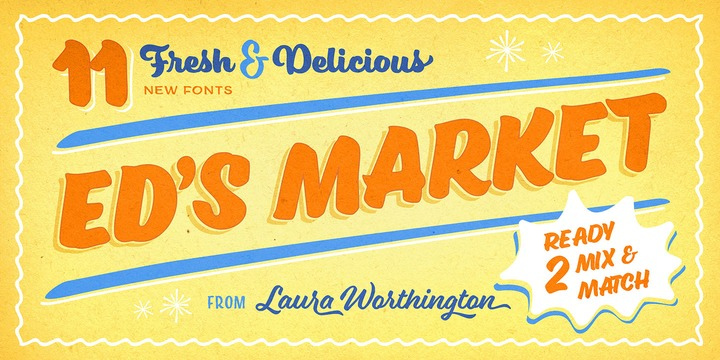
Ed's Market Font
Ed's Market Font is perfect for vintage market signage, rustic restaurant branding, artisanal product labels, farm-to-table establishments, organic food packaging, craft brewery logos, antique shop displays, and nostalgic small business communications.
Ed's Market Font is exciting because it captures the authentic charm of old-fashioned marketplace signage with weathered letterforms and rustic character details that evoke hometown warmth and traditional craftsmanship. Its nostalgic personality creates immediate emotional connection and genuine small-town authenticity that resonates with customers seeking traditional values.
Ed's Market Font family includes regular weight with vintage variations and weathered alternates, providing designers with comprehensive options for creating authentic marketplace typography solutions that project rustic charm and traditional quality.
Ed's Market Font Free Download delivers premium vintage typography that embodies the essence of traditional marketplace culture and authentic small business character. This charming typeface demonstrates exceptional attention to rustic detail through its weathered letterforms and marketplace-inspired construction that recreates genuine hometown appeal. The font's traditional personality makes it particularly suitable for farmers markets, local grocers, artisanal food brands, and small businesses seeking to establish authentic community atmosphere that connects with customers valuing traditional craftsmanship and local heritage.
Creative professionals consistently select Ed's Market Font for projects requiring hometown authenticity and traditional market appeal. Its rustic character works magnificently in local food establishments, craft businesses, farmers markets, and community-focused ventures where personal connection and traditional values drive customer loyalty. The font's marketplace nature creates memorable brand experiences that communicate heritage and authentic local craftsmanship.
The Ed's Market Font download package includes vintage variations, weathered alternates, and marketplace symbols that enhance its rustic authenticity and design versatility. This comprehensive collection ensures professional results in traditional branding projects requiring authentic marketplace typography. The font performs exceptionally across both digital and print applications where its rustic character and hometown details create significant emotional connection and community value.
Design teams appreciate Ed's Market Font's ability to communicate genuine authenticity and traditional craftsmanship in today's competitive marketplace. Its rustic styling transcends commercial trends while maintaining the personal touch required for local business positioning, making it an essential tool for organizations seeking to establish emotional connections through superior traditional typography and authentic community communication.